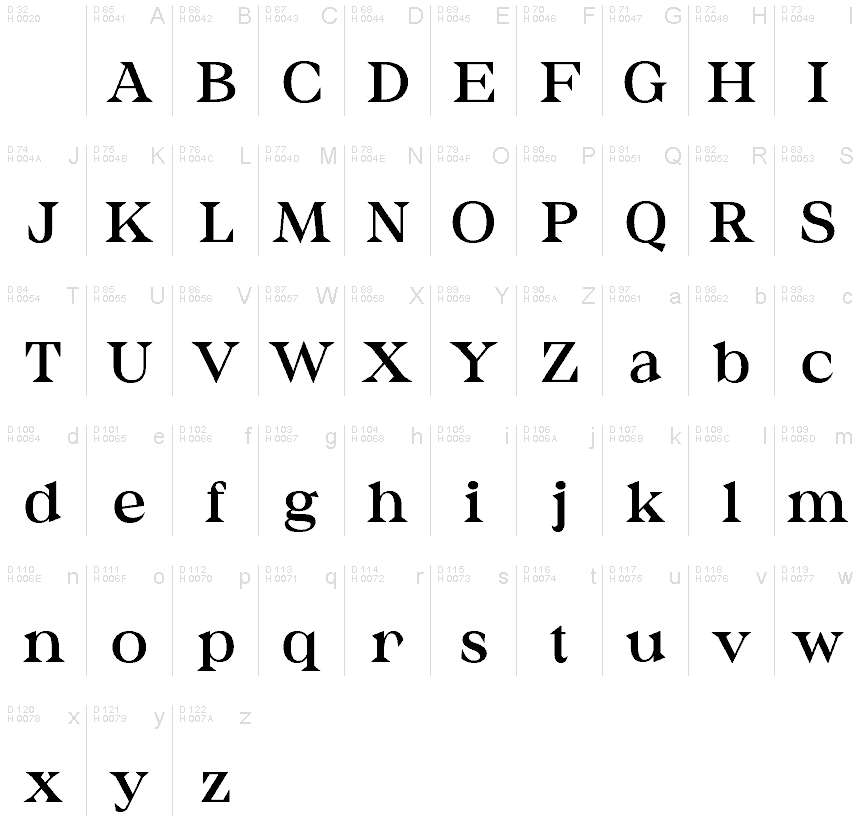
Hourdy Demo Regular
Hourdy font designed by Craft Supply Co is a free serif font with a refined and sophisticated aesthetic look. Hourdy has an elegant appearance that makes for one valuable addition to any arsenal of typefaces. Although it has a traditional look, it has the potential of being modernly applied in today’s versatile design fields.
Use Hourdy in applications such as certificates, wedding invitations, branding designs, signatures, watermarks, business cards, websites, and classic book covers. Also try using in larger sizes to maximize its beauty in posters and similar projects.